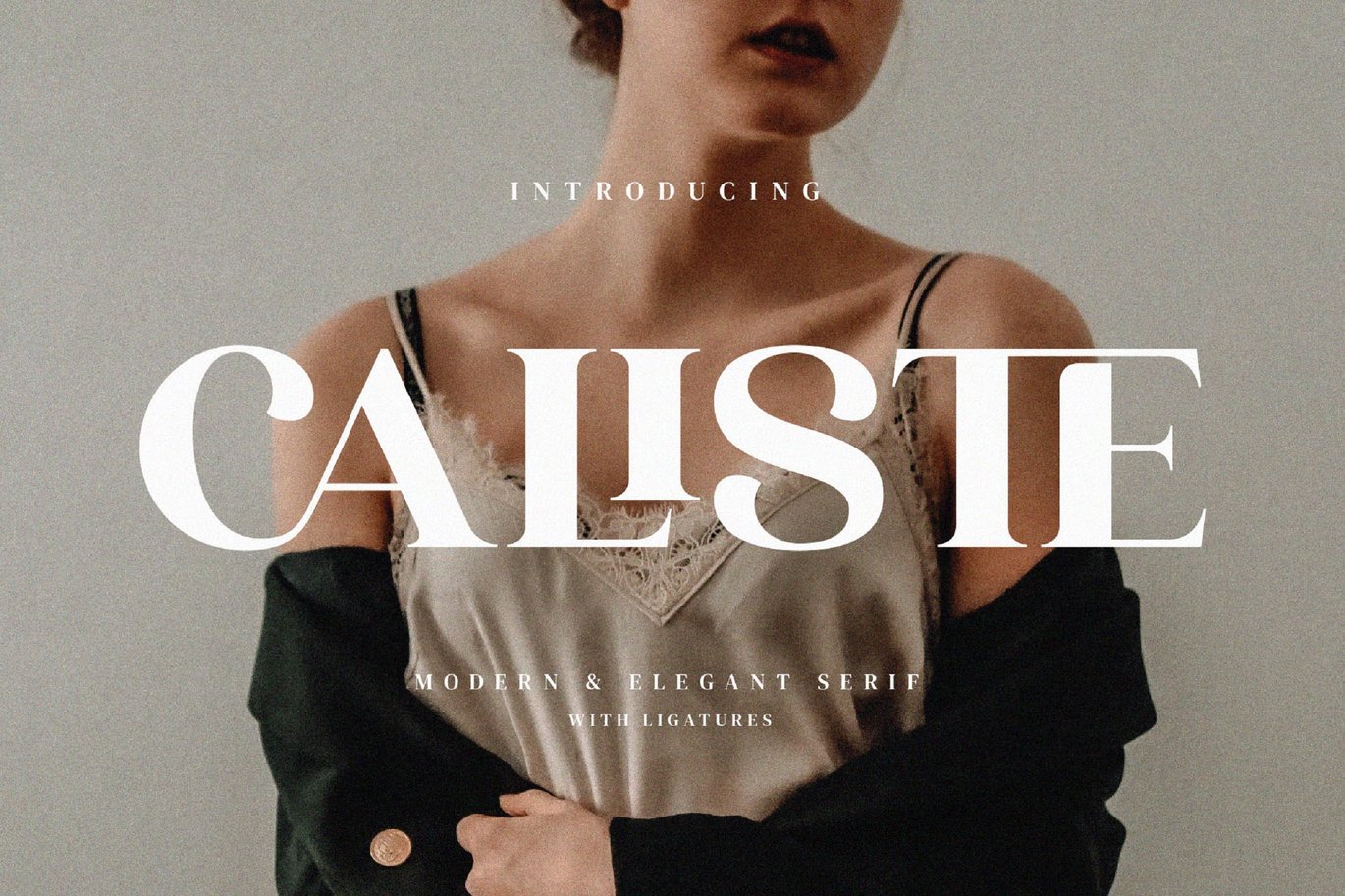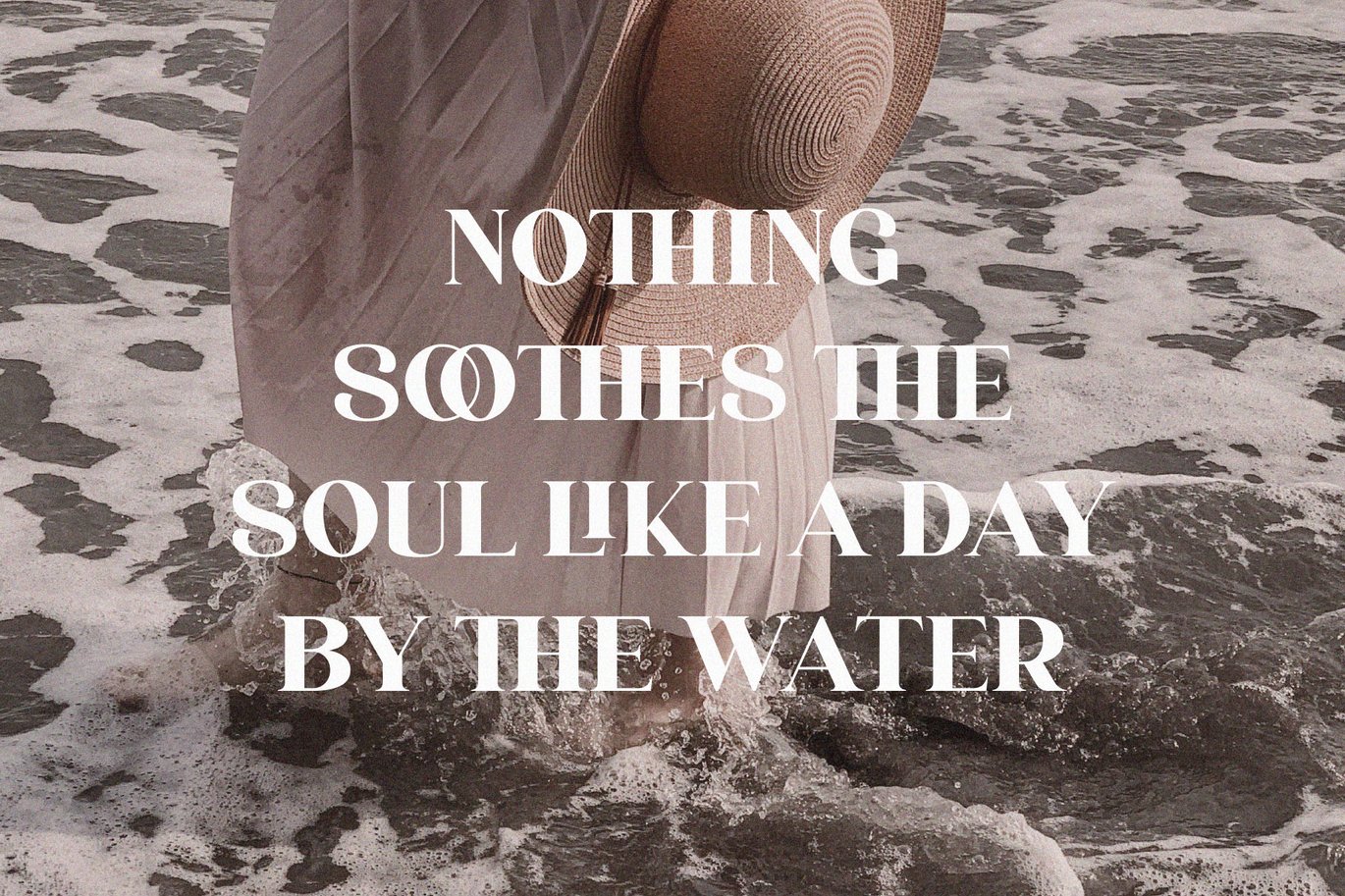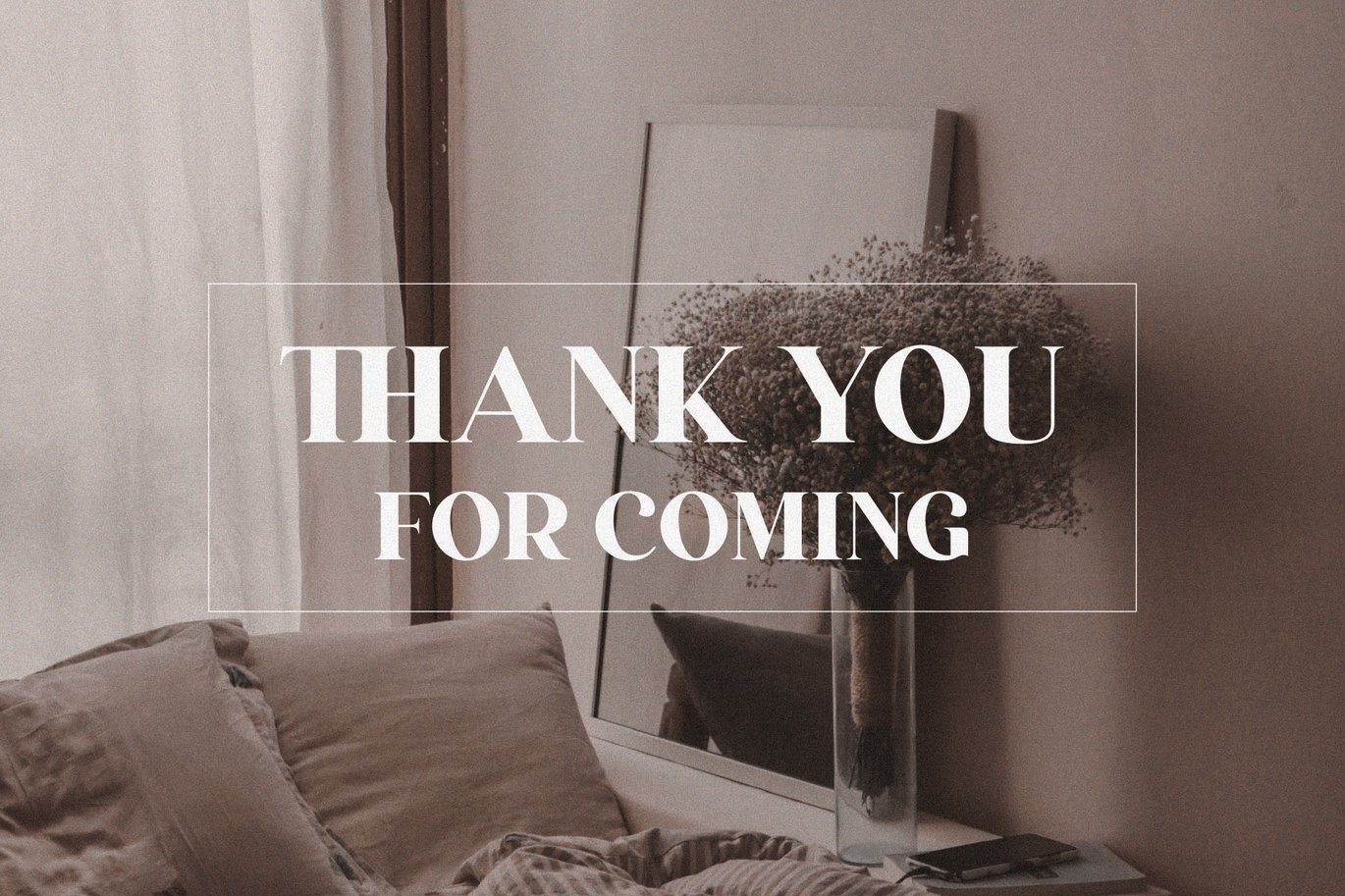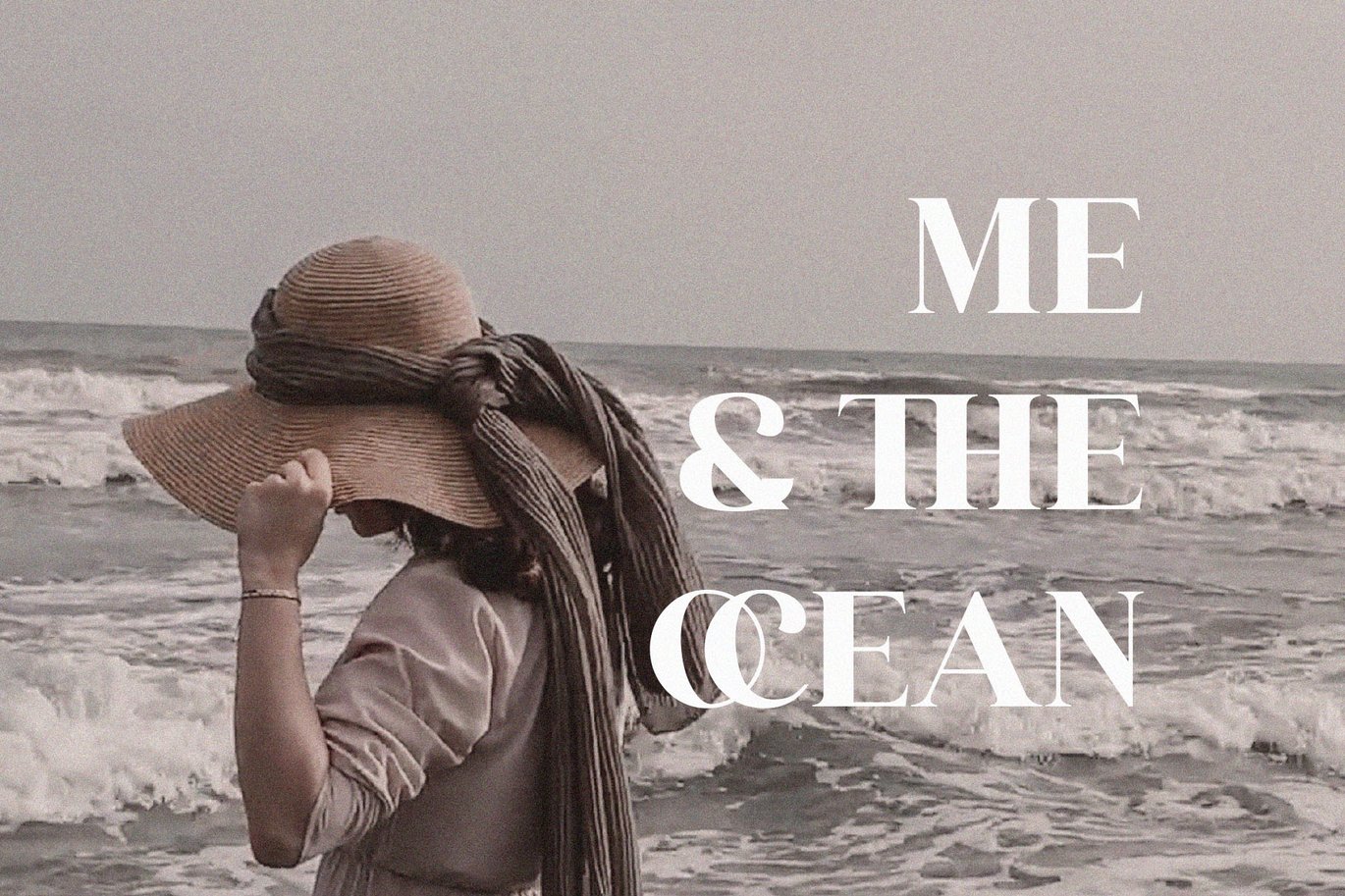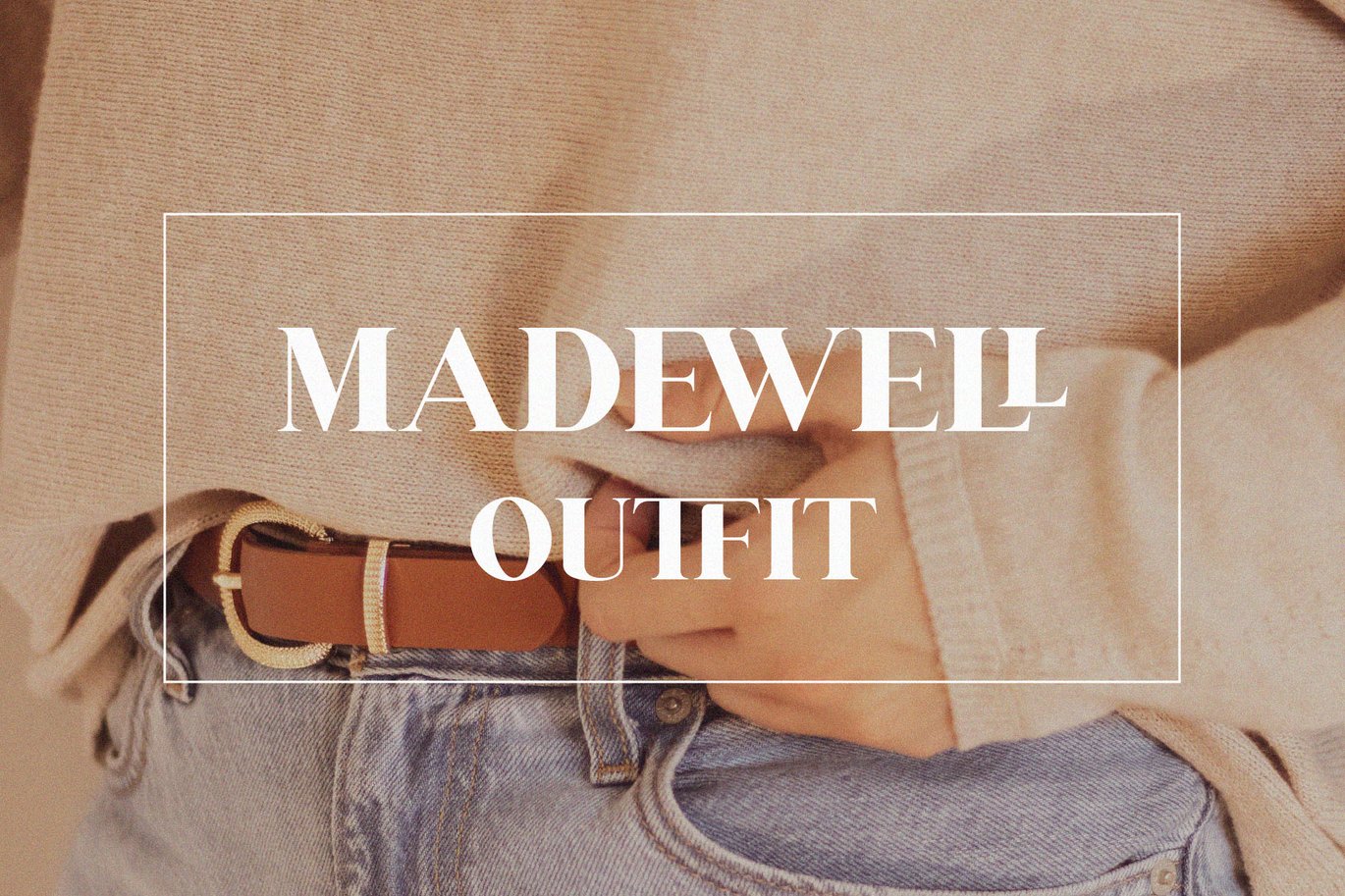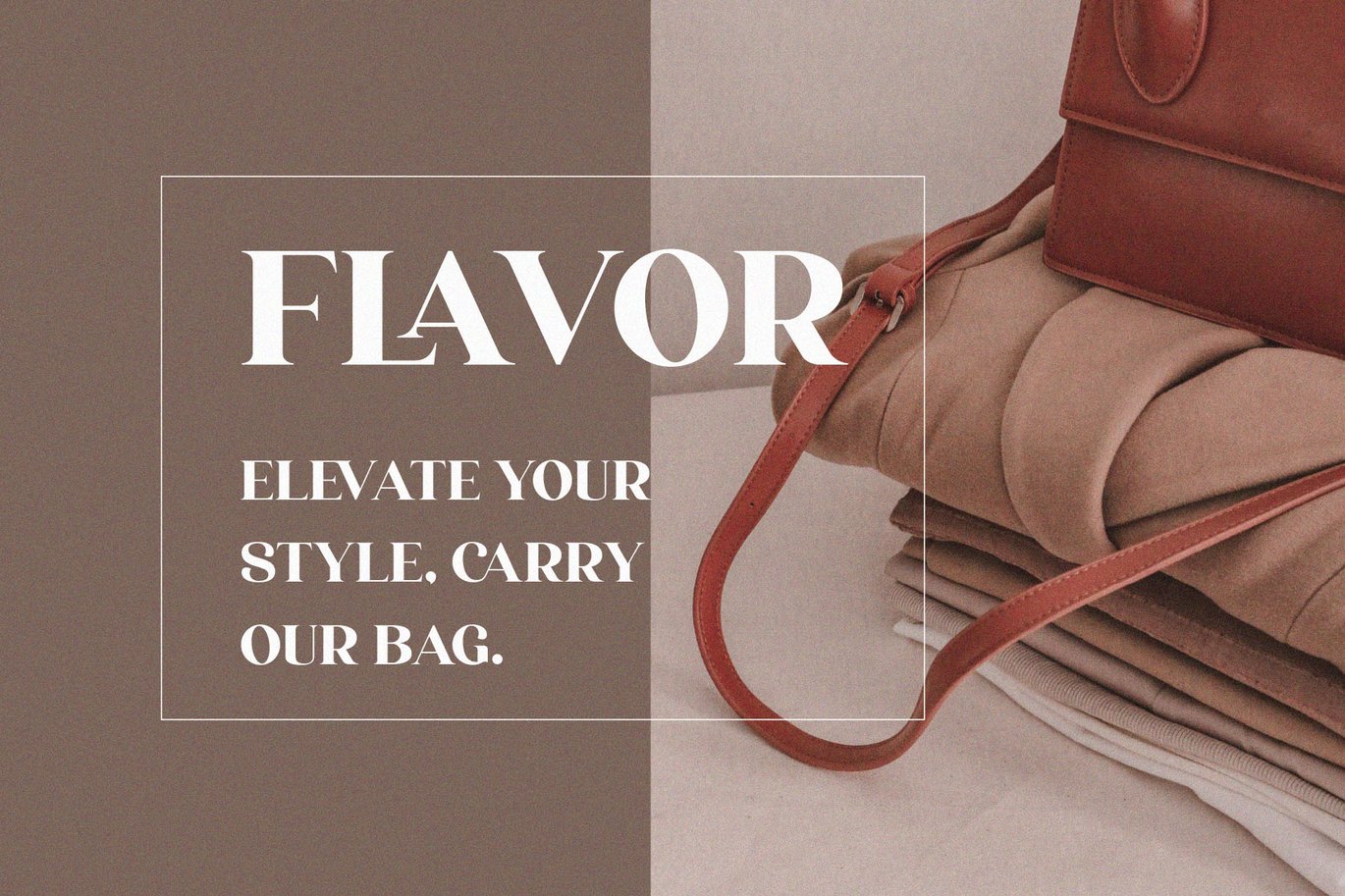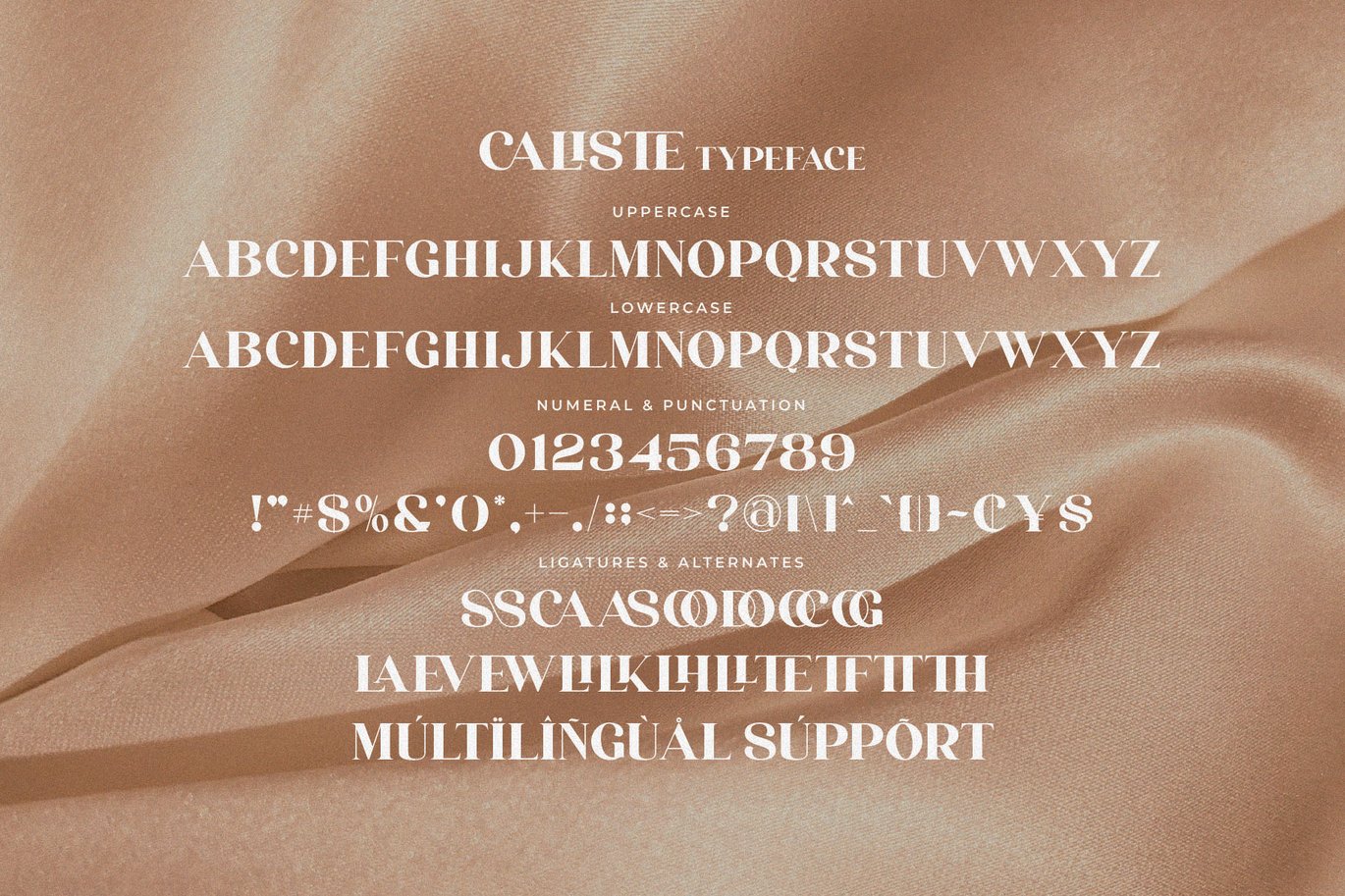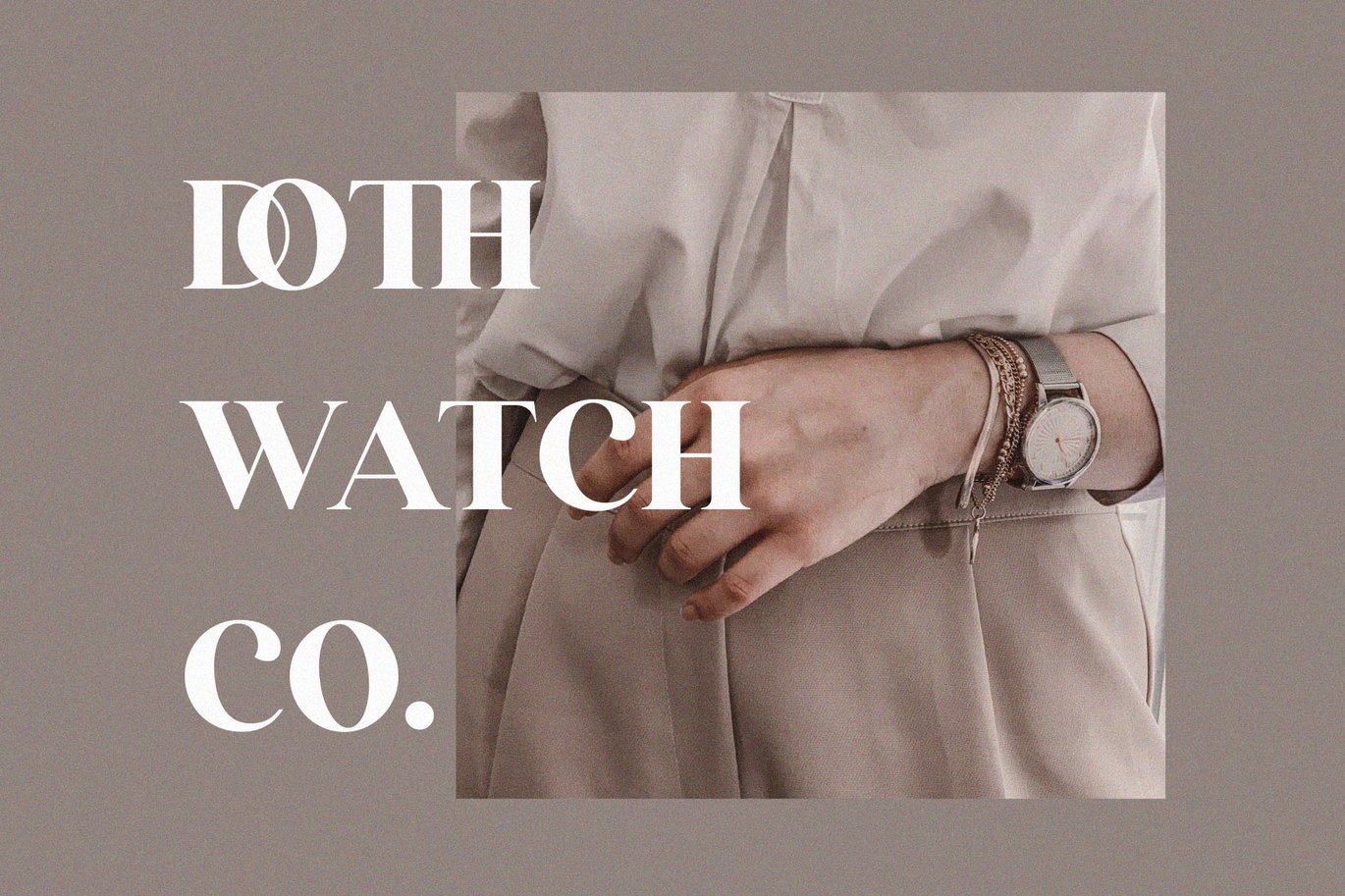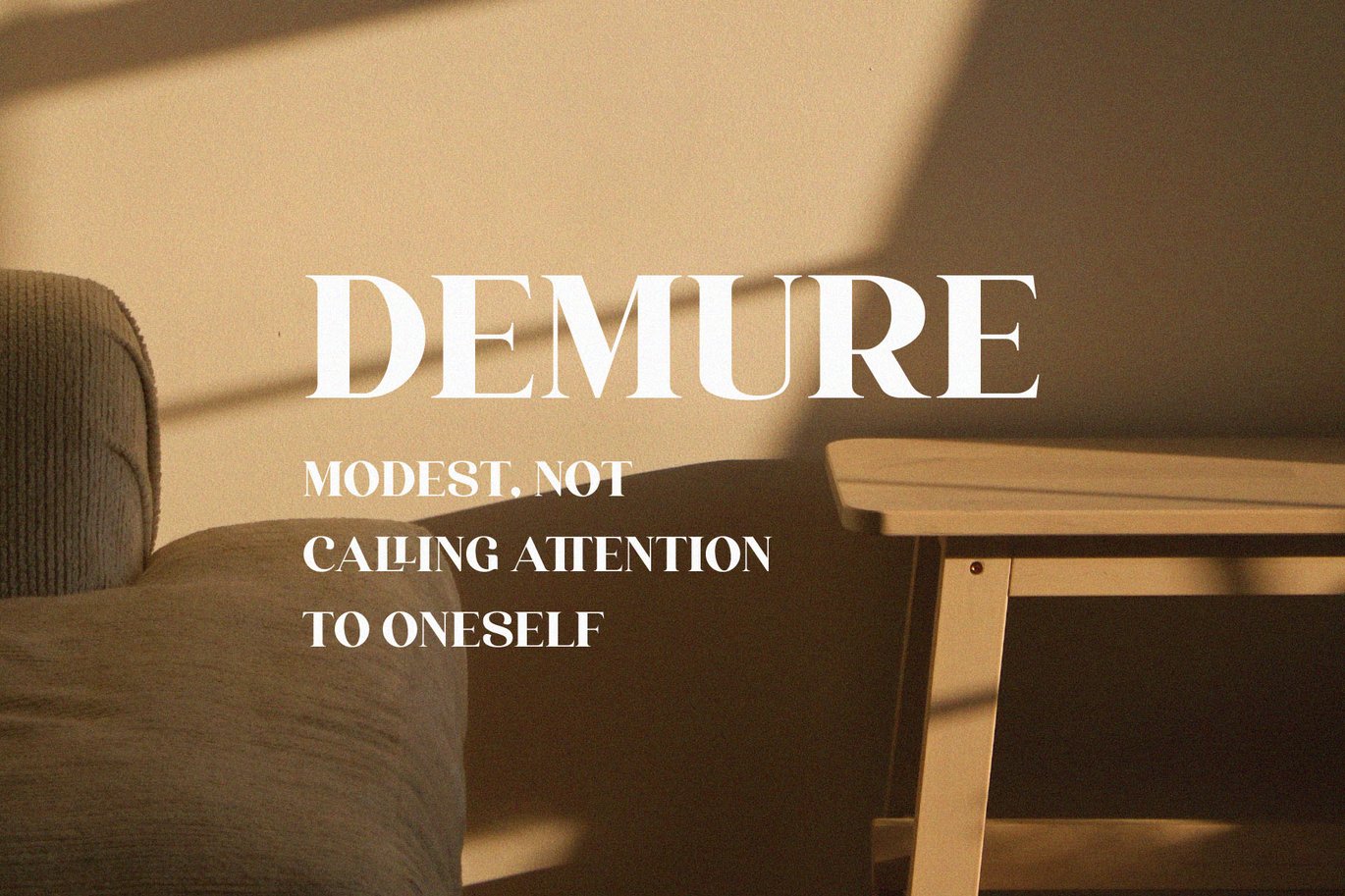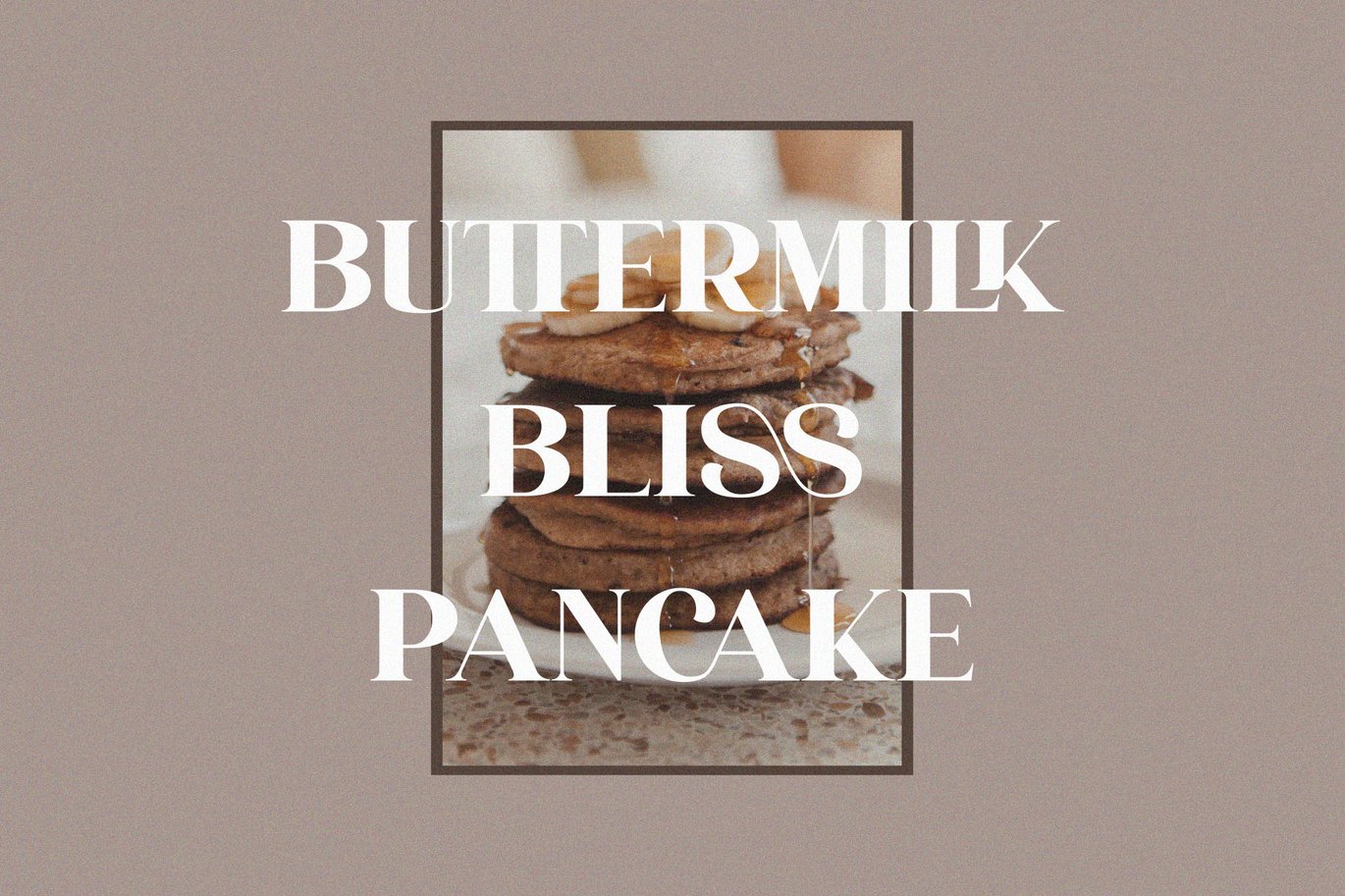
Caliste – Stylish Ligature Font
Caliste Stylish Ligature Typeface, inspired by the famous minimalist logo perfect for the purposes of designing templates, brochures, videos, advertising branding, logos and more.